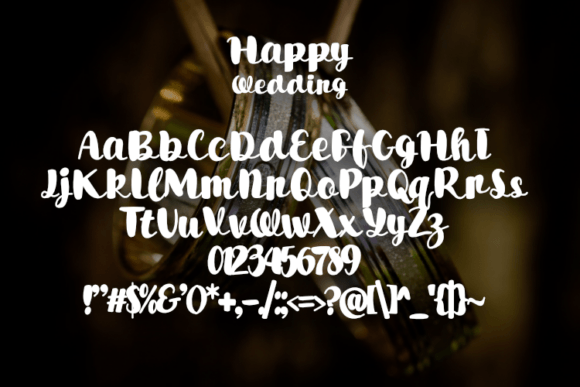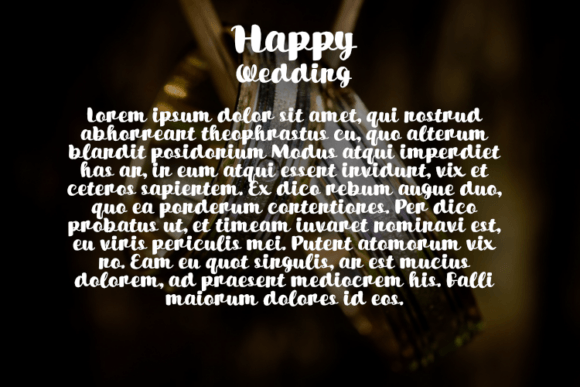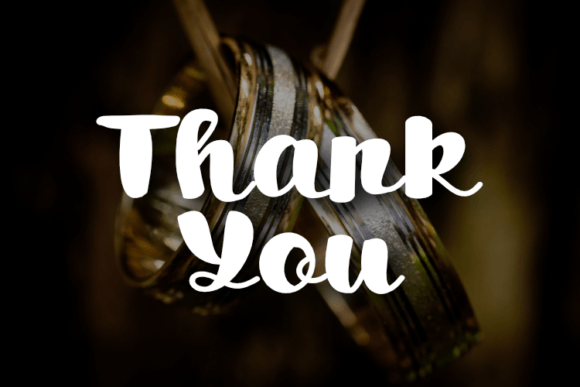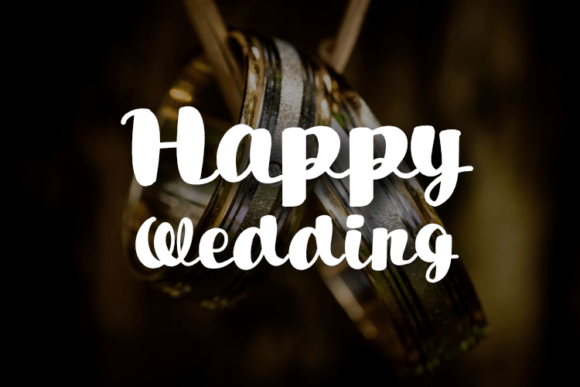
Introducing Happy Wedding Font: Elevate Your Designs with Elegance and Versatility
Welcome to the world of Happy Wedding, a revolutionary font that’s more than just a typography style – it’s your perfect design companion. In the realm of creative design, the right font can make all the difference. Happy Wedding is here to redefine the way you approach typography, offering a unique blend of elegance, versatility, and compatibility that makes it an indispensable tool for designers and crafters alike.
Aesthetic Excellence: The Distinct Touch of Happy Wedding
Happy Wedding font is crafted to bring a distinct touch to your designs, whether you’re working on fashion designs, product illustrations, or any other creative project. Its aesthetic appeal is undeniable, capable of elevating the visual impact of your work with its elegant and sophisticated style. The font’s design is meticulously crafted to ensure that it adds a layer of refinement and class to your creations, making them stand out in a crowded design landscape.
One of the standout features of Happy Wedding font is its incredible versatility. It’s designed to fit seamlessly into all types of designs, from minimalist and modern to elaborate and traditional. Whether you’re creating branding materials, wedding invitations, or digital content, Happy Wedding adapts effortlessly, ensuring that your message is conveyed with style and sophistication.
Unlock New Design Possibilities
With Happy Wedding, designers and crafters can unlock new possibilities in their creative projects. The font’s unique style and flexibility make it an excellent choice for a wide range of applications, from print and digital media to product design and crafting. Whether you’re a professional designer or a DIY enthusiast, Happy Wedding offers the tools you need to bring your vision to life.
Why Choose Happy Wedding Font?
- Elegant Design: Adds a touch of sophistication and elegance to your designs.
- Versatile: Suitable for a wide range of design projects, from fashion to product illustrations.
- Unique Style: Offers a distinct aesthetic that sets your designs apart.
Experience the Future of Typography
Happy Wedding font is not just a typography style; it’s an experience. It invites you to see the world of design through a new lens, where creativity knows no bounds, and elegance is a given. By incorporating Happy Wedding into your design process, you’re not just choosing a font; you’re embracing a design philosophy that values beauty, versatility, and innovation.
In conclusion, Happy Wedding font is a game-changer for designers and crafters looking to elevate their creative projects. Its unique blend of aesthetic excellence, versatility, and compatibility makes it an invaluable resource in the world of design. Whether you’re looking to refine your brand’s typography or add a touch of elegance to your DIY projects, Happy Wedding is your perfect partner. Welcome to the world of Happy Wedding, where every design project is an opportunity to create something beautiful and memorable.